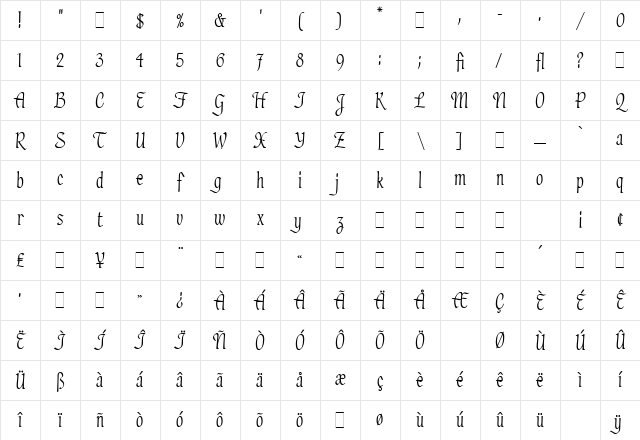
Complete Hadfield LET Plain glyph index. Displaying only characters natively supported by Hadfield LET Plain font.
Hadfield LET is a composed and adaptable typeface that performs quietly and consistently across a wide range of design contexts.